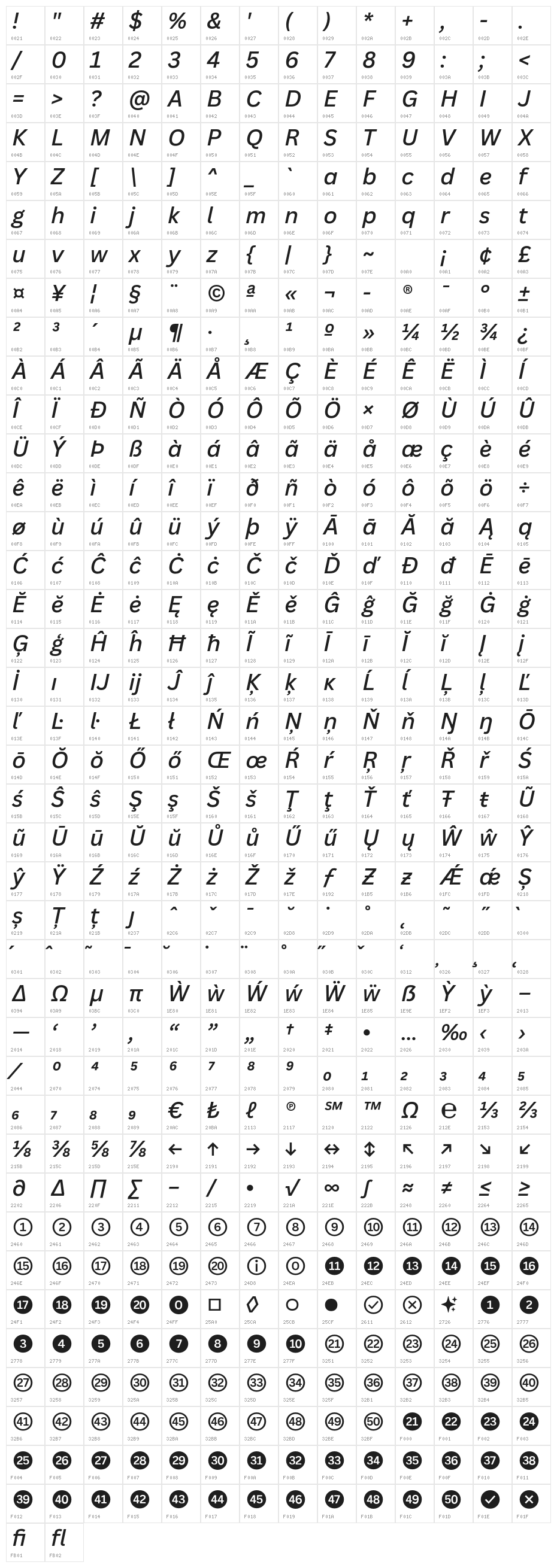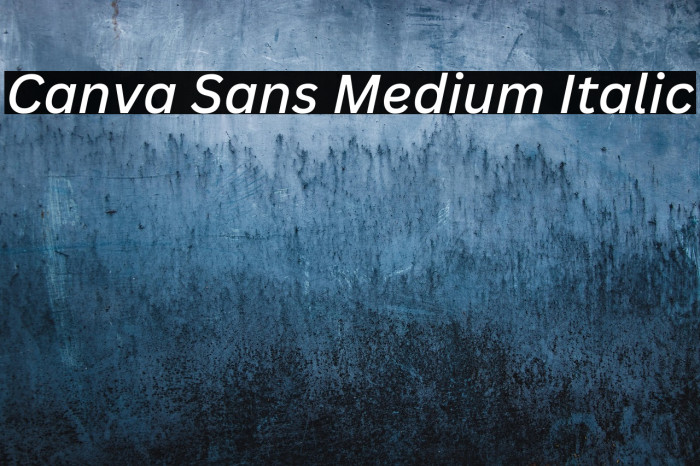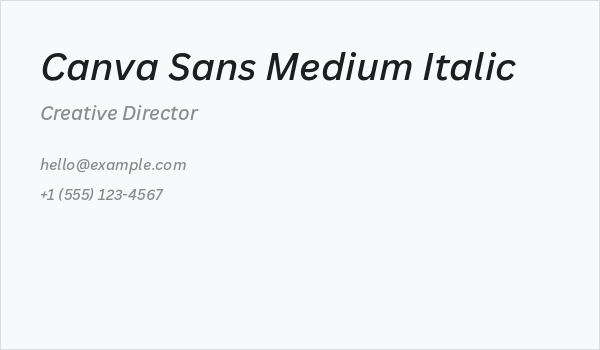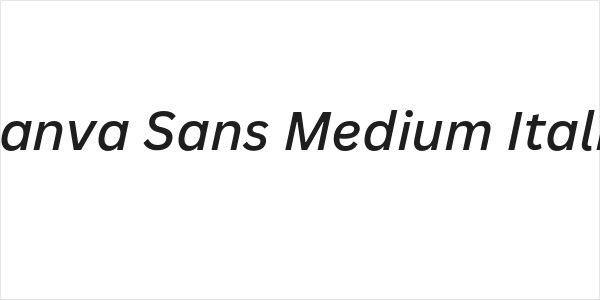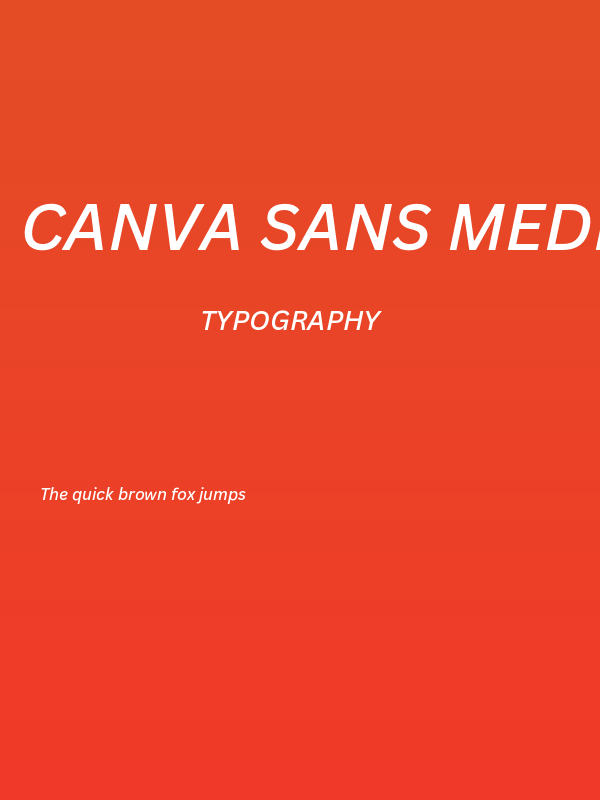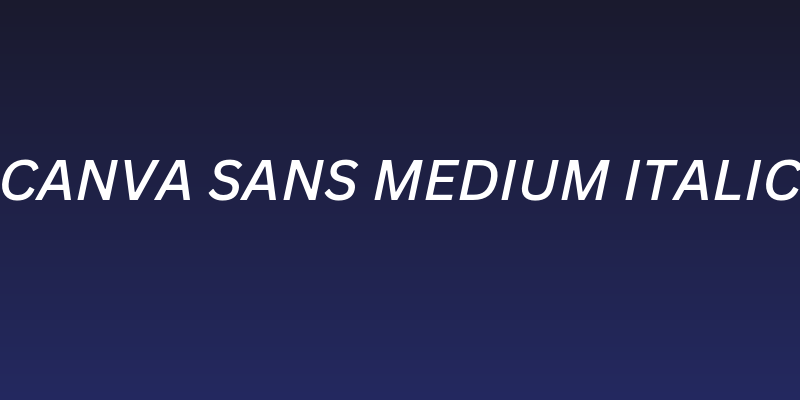
Canva Sans Medium Italic Font
Canva Sans Medium Italic Description
This font presents a clean and modern aesthetic with a slight slant, giving it an italicized appearance. The characters are well-proportioned, maintaining a consistent medium weight throughout. The sans-serif style ensures clarity and readability, making it suitable for various applications. The numerals and special characters are designed to match the overall style, ensuring uniformity across different types of content. The spacing between characters is balanced, neither too tight nor too wide, which aids in legibility. This font's contemporary look makes it versatile for both digital and print media.
| Proposed Projects | Ideal for branding, digital content, presentations, and user interfaces. |